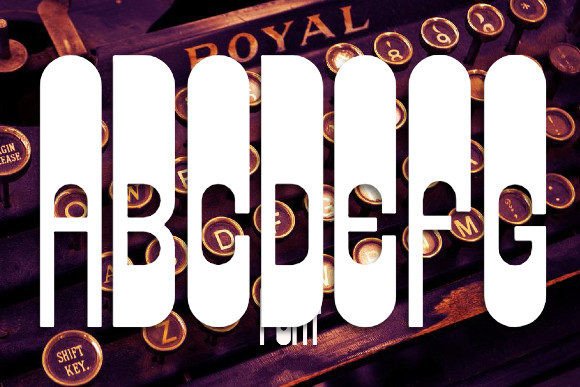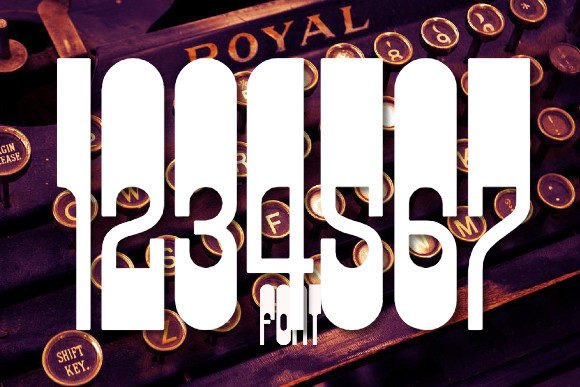
Introduction to Retrosonic Font
Retrosonic is a versatile, playful, and retro display font.
It is perfect for a wide spectrum of applications such as greeting cards, headlines, and many more Add it confidently to your projects, and you will love the results.
Why Choose Retrosonic Font?
Retrosonic Font offers exceptional quality and versatility, making it a valuable addition to your design toolkit. Whether you’re creating for personal projects or commercial use, Retrosonic Font delivers professional results.